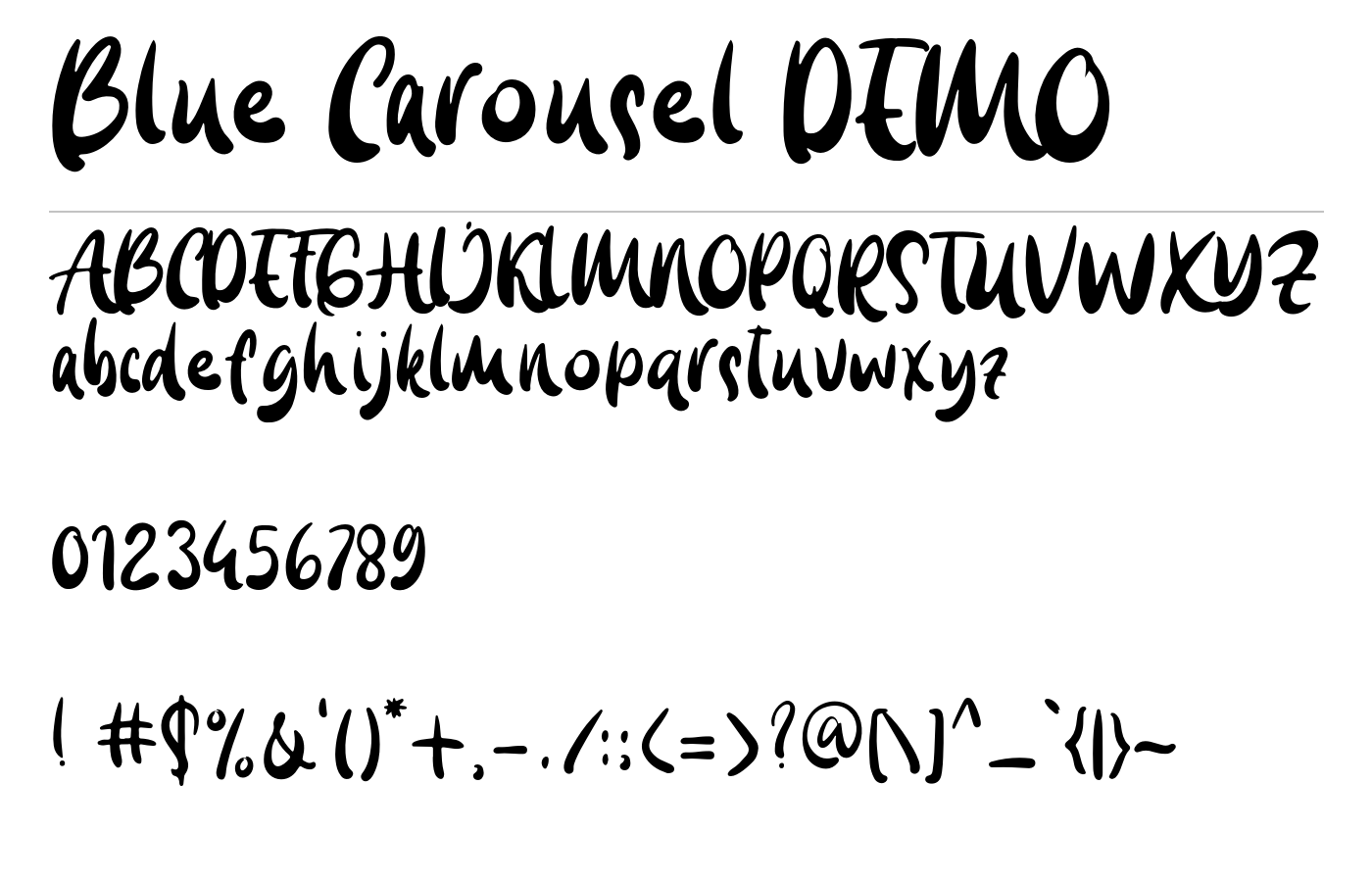
Blue Carousel DEMO is a lively and playful handwritten font with a casual, brush-like style that brings character and warmth to any design. Its smooth, rounded strokes and uneven letterforms create a friendly and approachable feel, making it ideal for creative projects, informal branding, and fun headlines. This font works well for logos, posters, and packaging that seek a personal and energetic touch.
Blue Carousel DEMO Font
About Blue Carousel DEMO Font